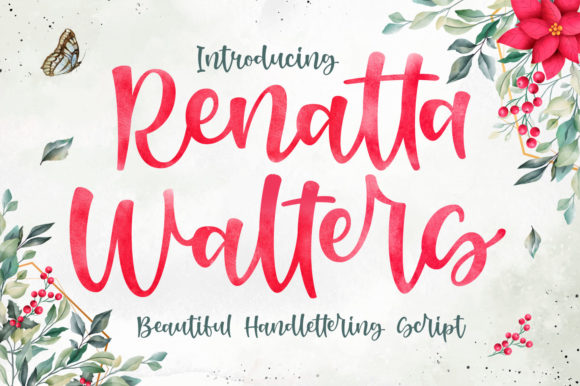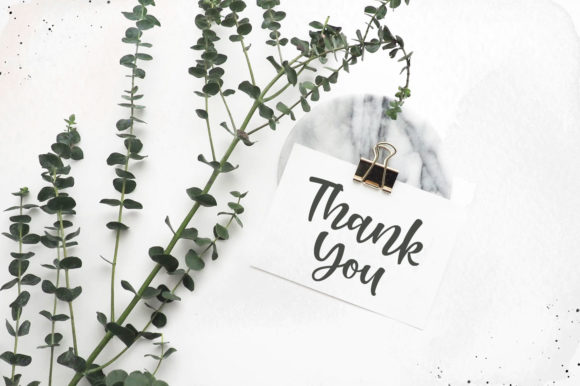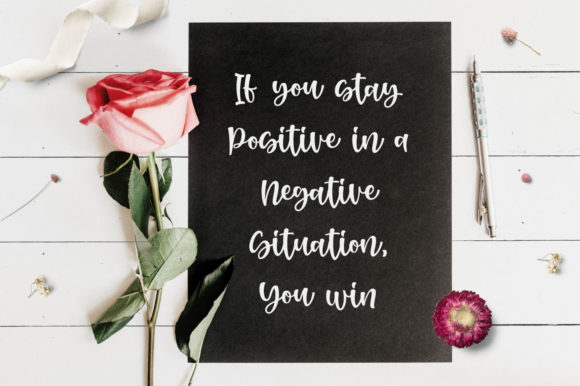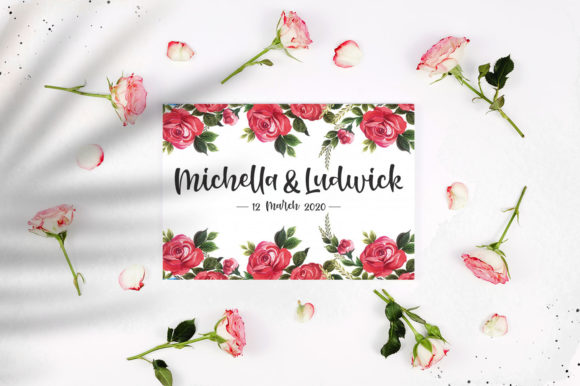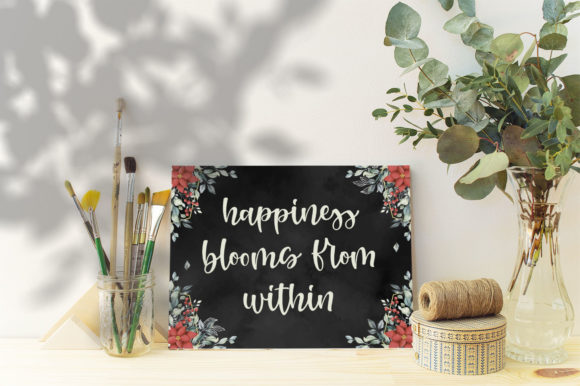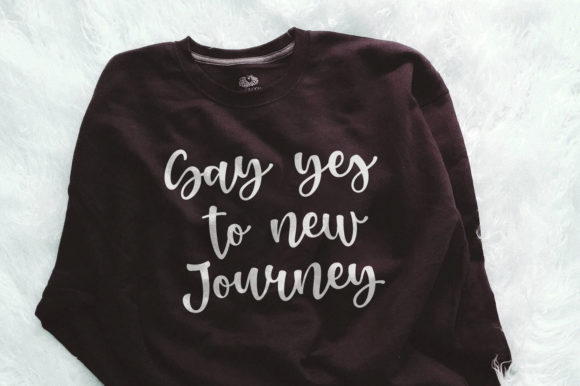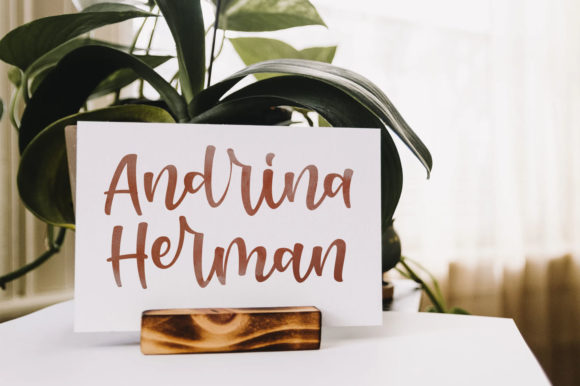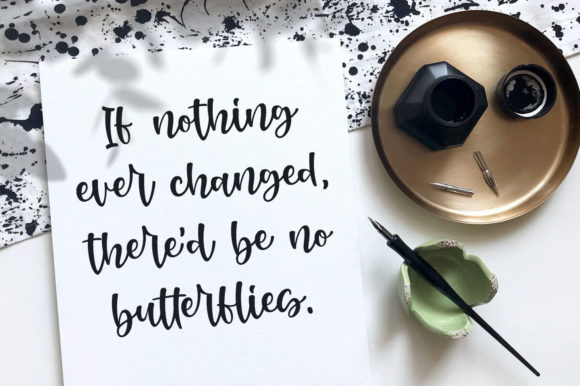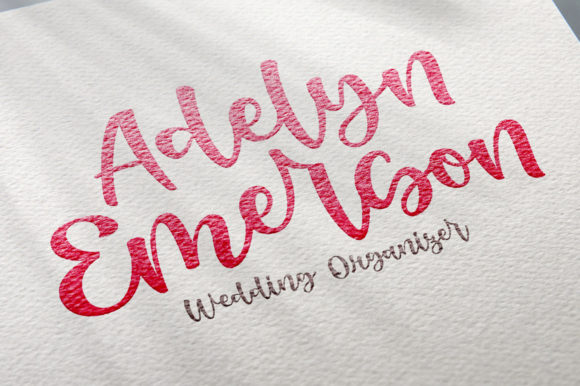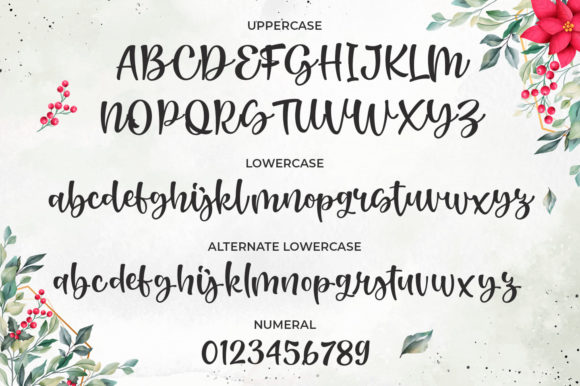
Renatta Walters Font
About Renatta Walters Font
Renatta Walters is an elegant and sweet script with a romantic spark. Use it to add that special enchanting touch to any design idea you can think of!